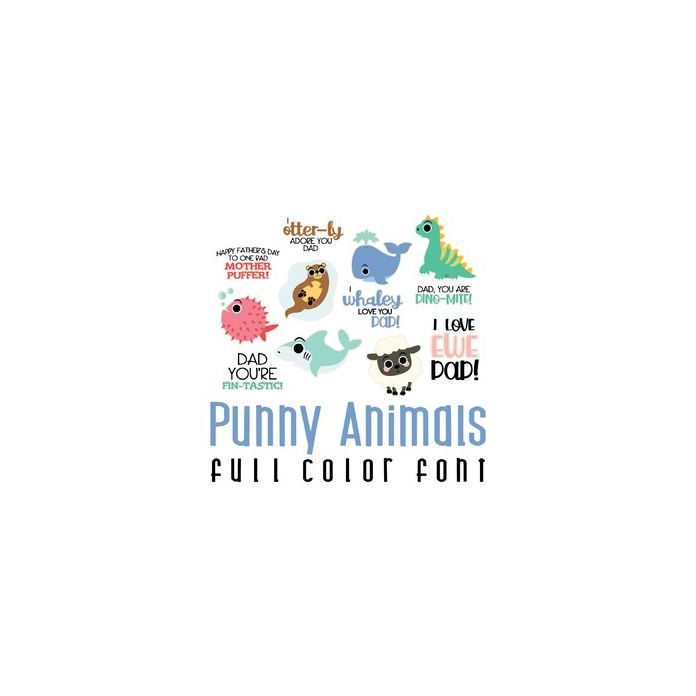
This adorable full color doodlebat font features cut animal imagery and corresponding puns. Perfect for cards, crafts, gifts, decor, scrap book pages, planner stickers and more!